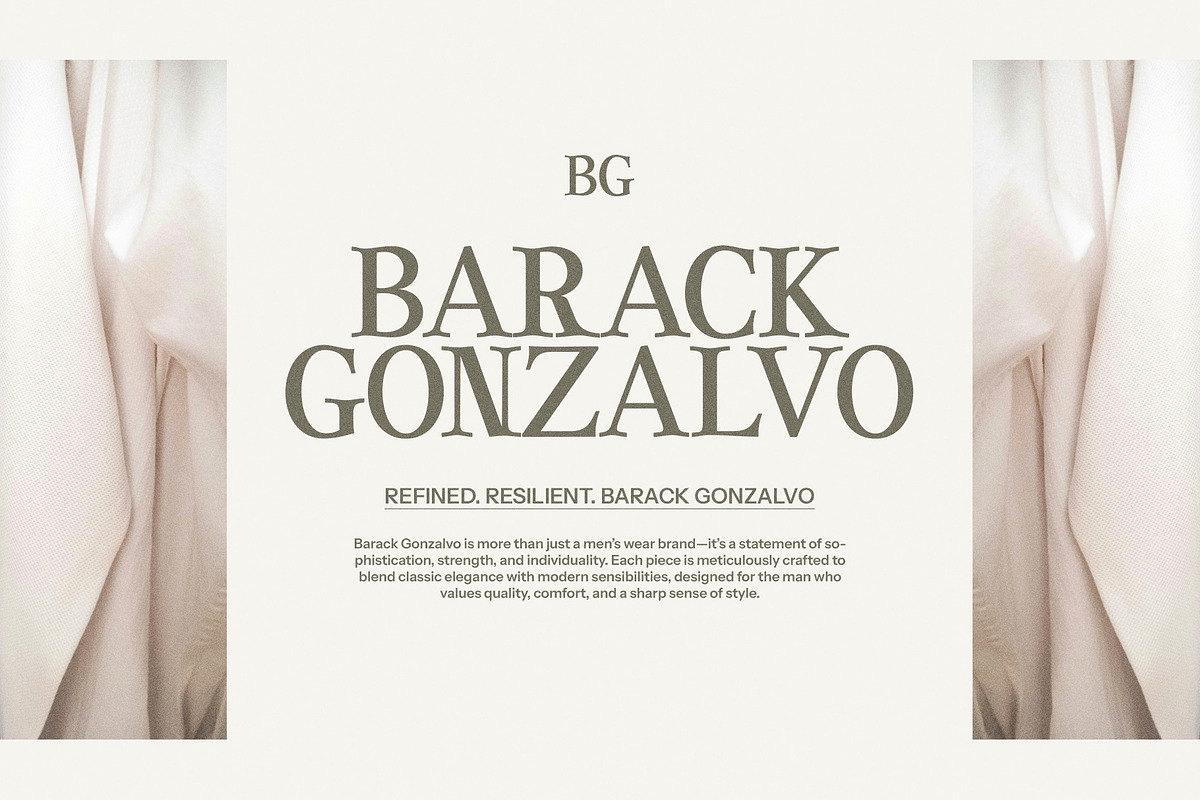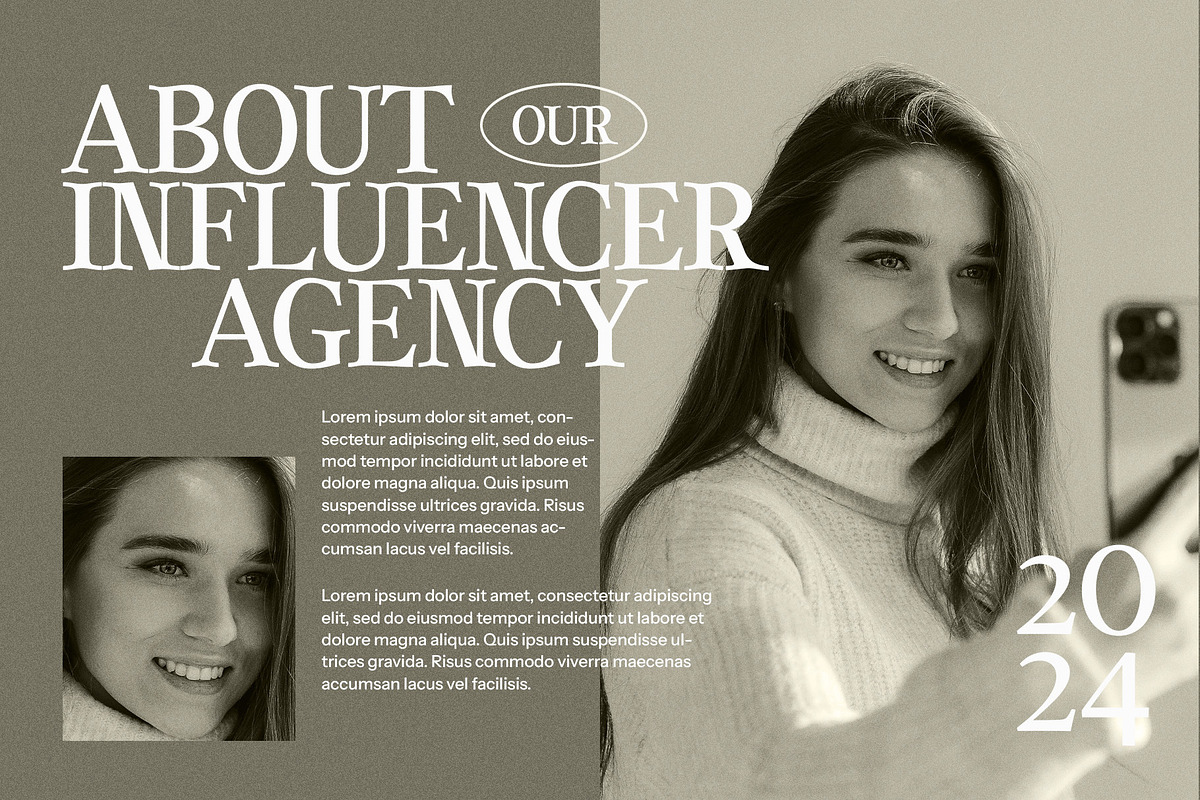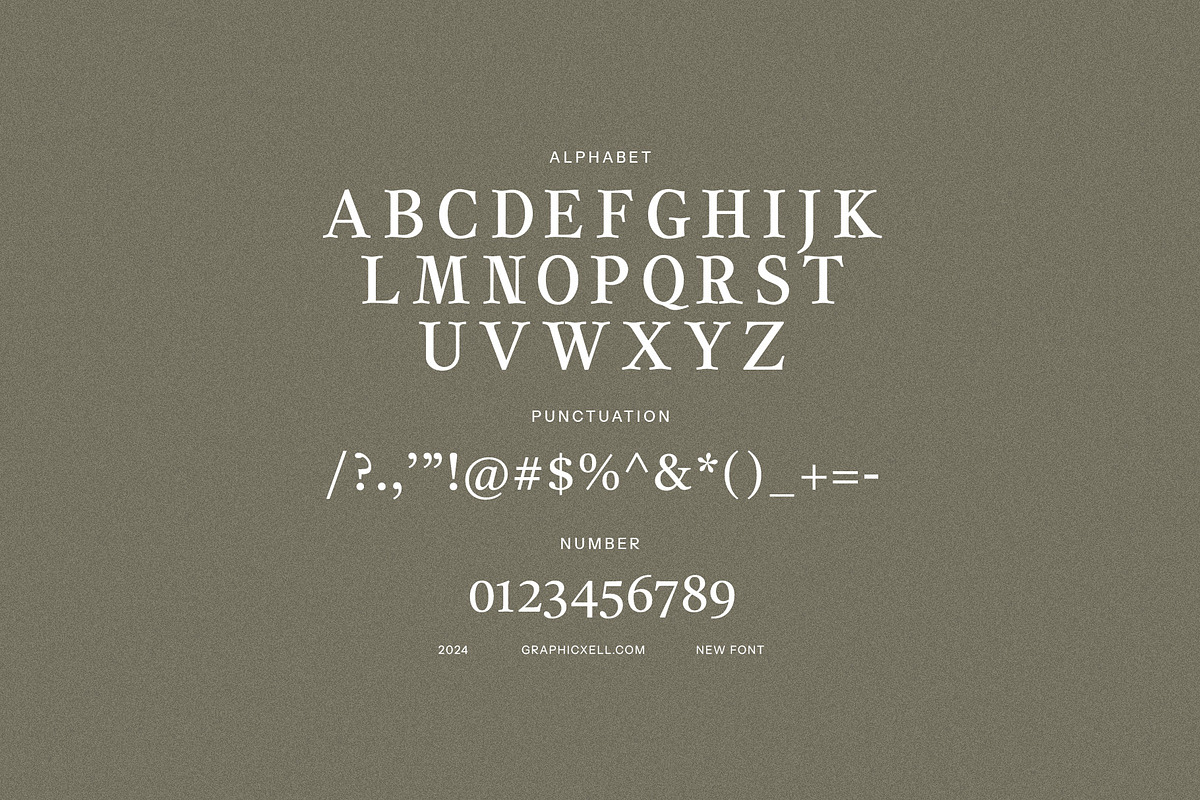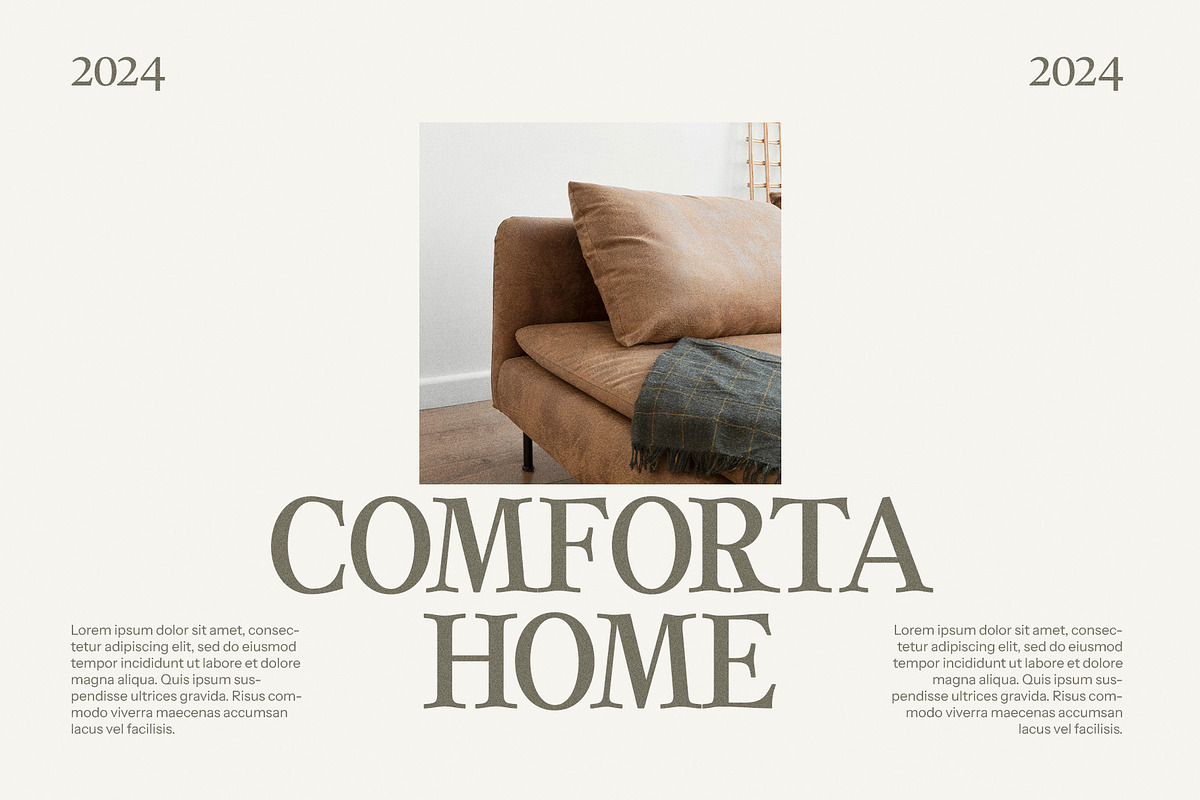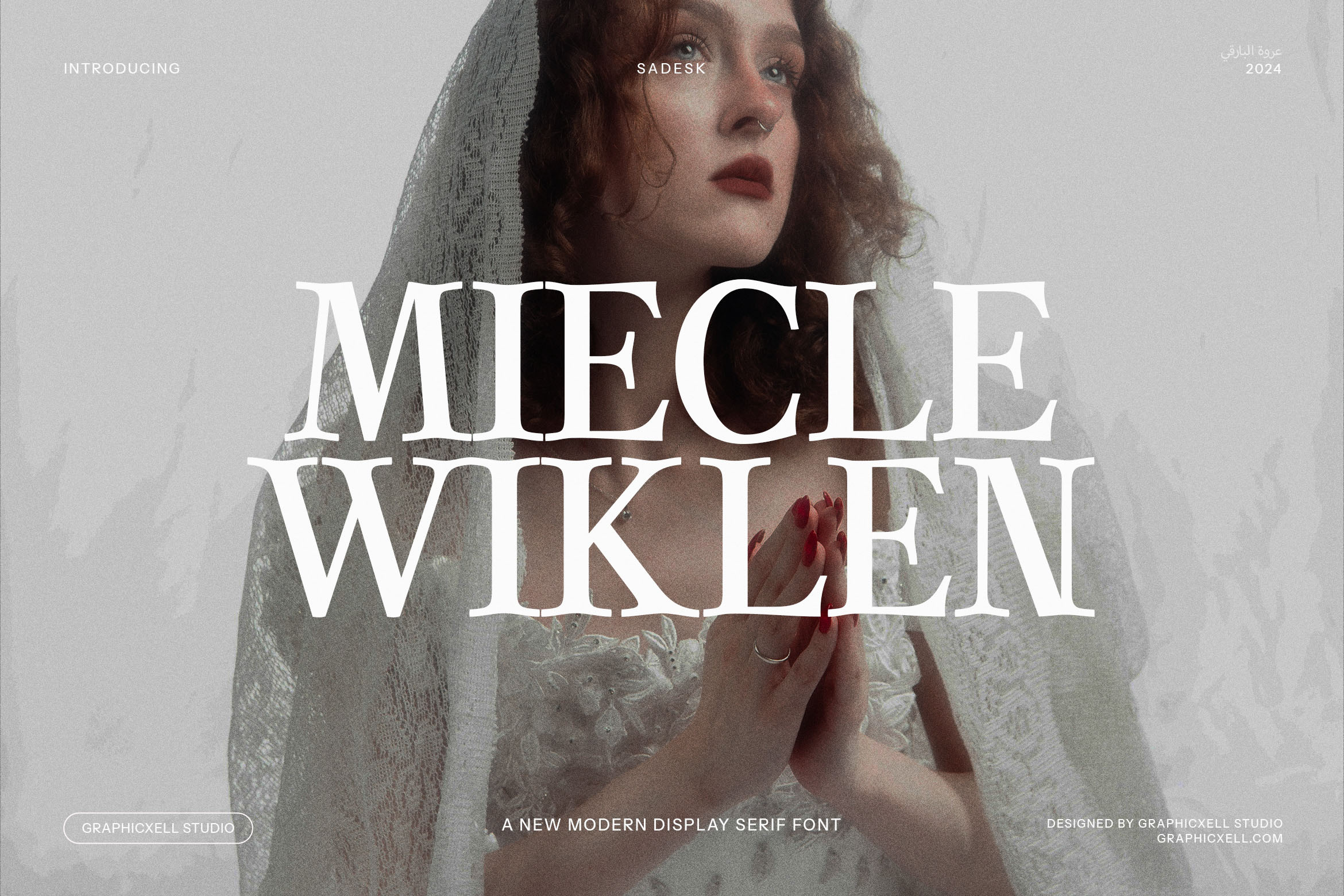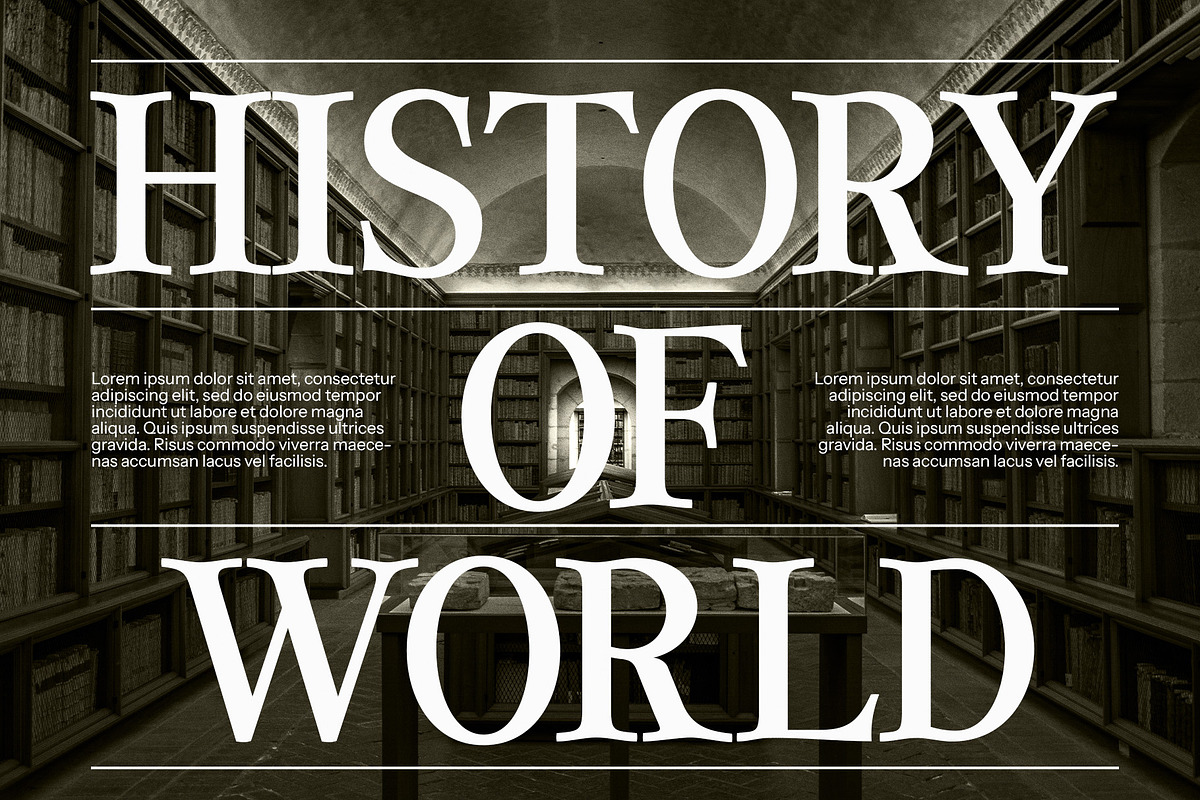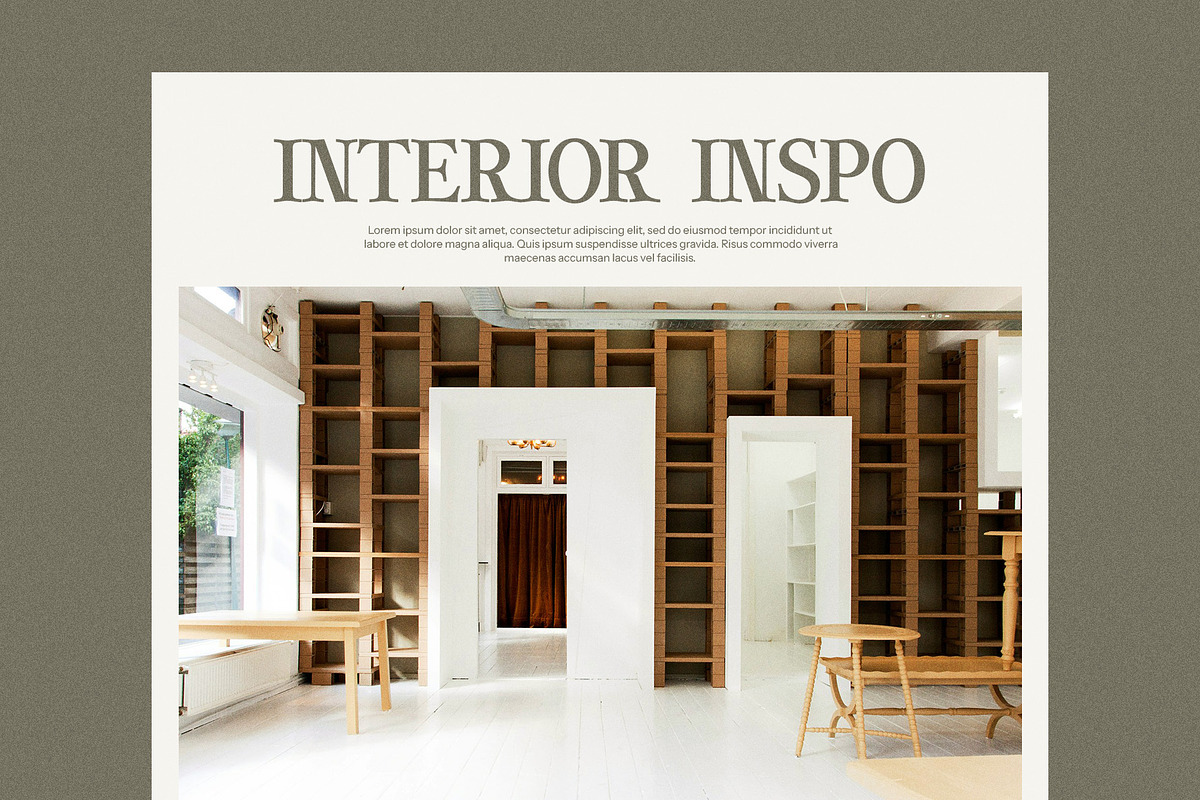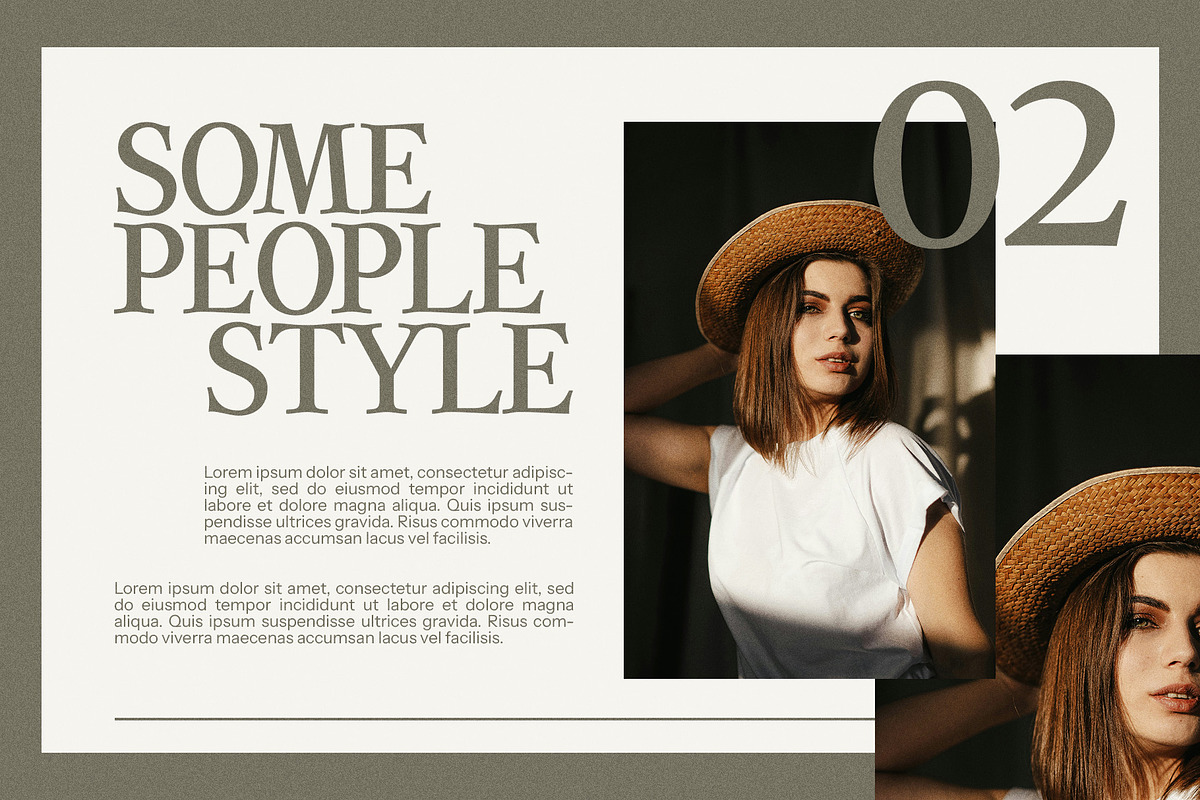
Miecle Wiklen - Elegant Serif Font
Miecle Wiklen Elegant Serif Font – A Perfect Blend of Modern Elegance and Vintage Charm
Introducing Miecle Wiklen Elegant Serif Font, a sophisticated and unique serif typeface designed to bring timeless elegance to your creative projects. Combining modern design elements with vintage influences, this font offers a perfect balance of style and legibility, making it ideal for a variety of design applications.
With its refined letterforms and graceful serifs, Miecle Wiklen is perfect for logos, branding, websites, magazines, advertisements, and more. Whether you're working on a luxury brand, a boutique website, or product packaging, this font exudes a high-end, polished look that speaks to a sense of timeless sophistication. Its unique style adds a distinctive touch to any project, while maintaining readability and clarity, making it a versatile choice for both print and digital designs.
The vintage-inspired details of Miecle Wiklen make it particularly well-suited for retro branding and vintage aesthetics, while its modern proportions and clean lines give it a fresh, contemporary feel. This makes it the perfect font for high-end boutiques, food brands, advertisements, and magazine layouts that want to evoke a sense of elegance and luxury.
Whether you're designing for premium products, exclusive events, or sophisticated marketing campaigns, Miecle Wiklen Elegant Serif Font offers a distinctive, refined look that captures attention and elevates your design. Enhance your next project with this versatile and stylish font, designed for creators who demand both elegance and originality.